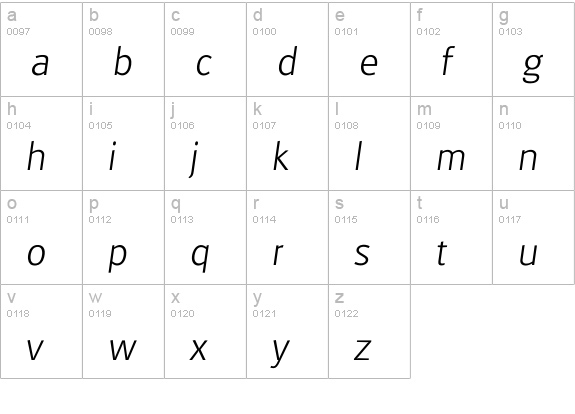
Introducing Iglasgow Xlight, a captivating and unique font that effortlessly combines modern elegance with a touch of sophistication. This font is specifically designed to add a touch of finesse to any project, whether it's a logo, website, or printed materials. Iglasgow Xlight features a sleek and slender design, with each letter carefully crafted to exude a sense of grace and refinement. Its delicate curves and precise lines create a harmonious balance, making it ideal for both headlines and body text. One of the most remarkable aspects of Iglasgow Xlight is that it is completely free to use. Yes, you read that right – this stunning font is freely available to download at FontsMarket.com. This means that you can enhance your designs with this exquisite font without breaking the bank. With its versatility and timeless appeal, Iglasgow Xlight is guaranteed to make a lasting impression on your audience. Its clean and legible characters ensure readability, while its unique style adds a touch of individuality to any design. So, whether you're working on a professional project or simply want to add a touch of elegance to your personal creations, Iglasgow Xlight is the perfect font choice. Download it for free at FontsMarket.com and unleash your creativity with this stunning typeface.